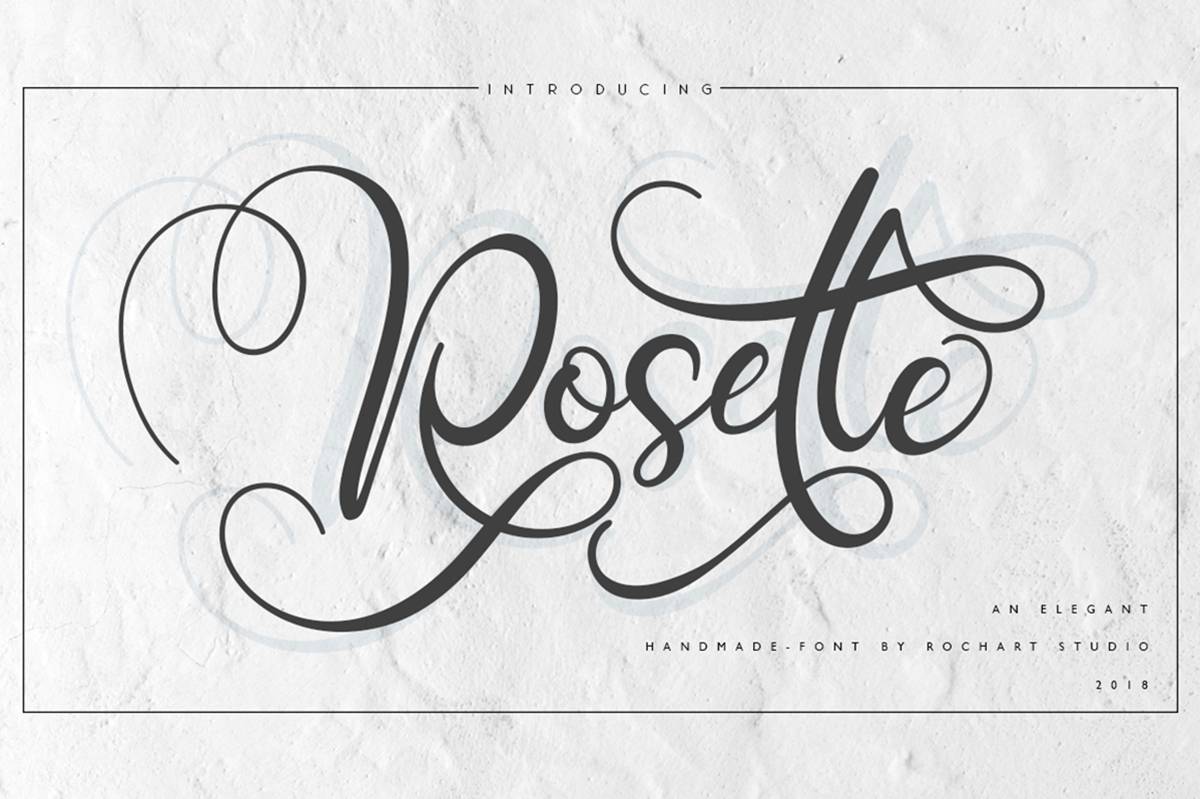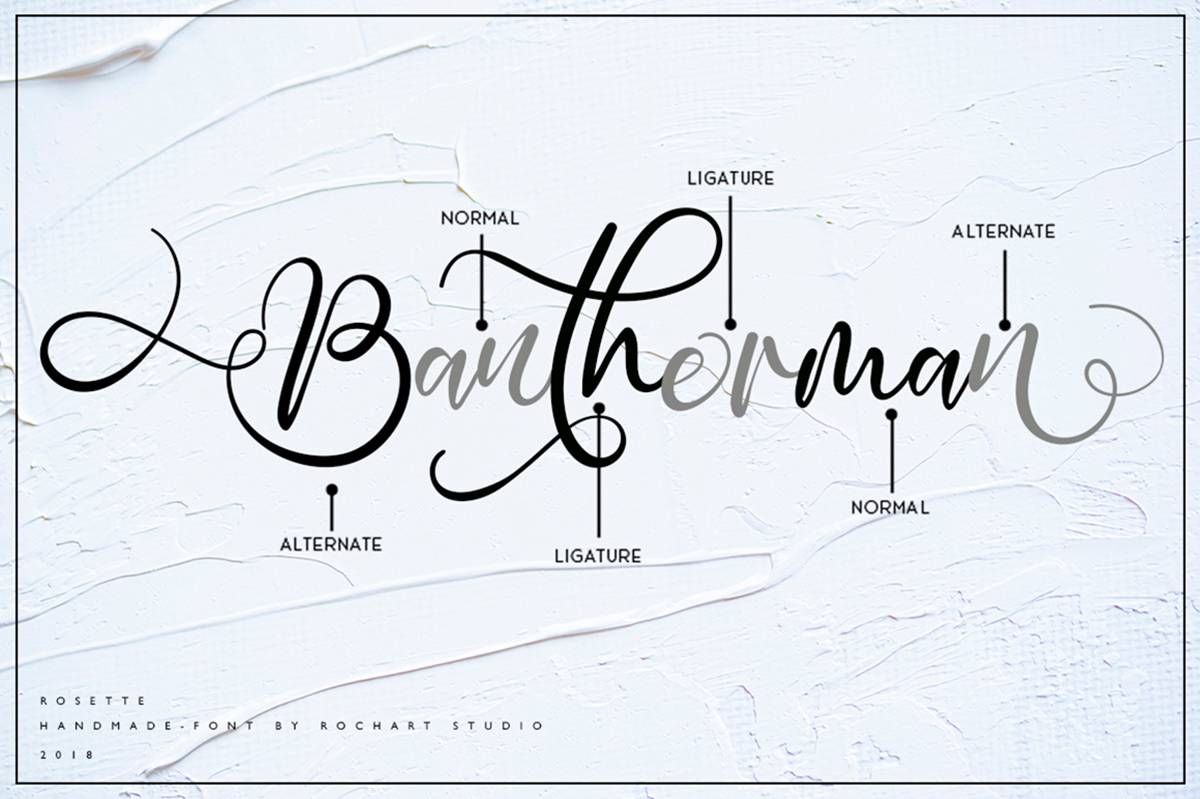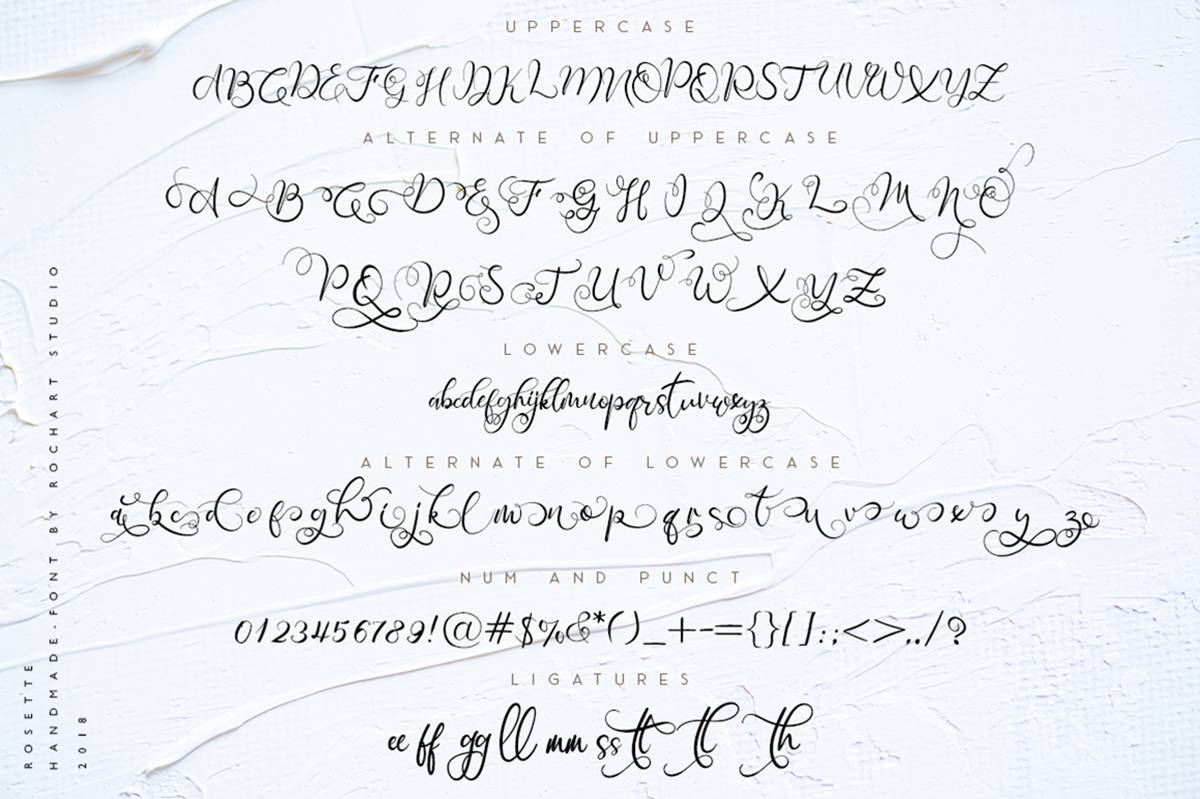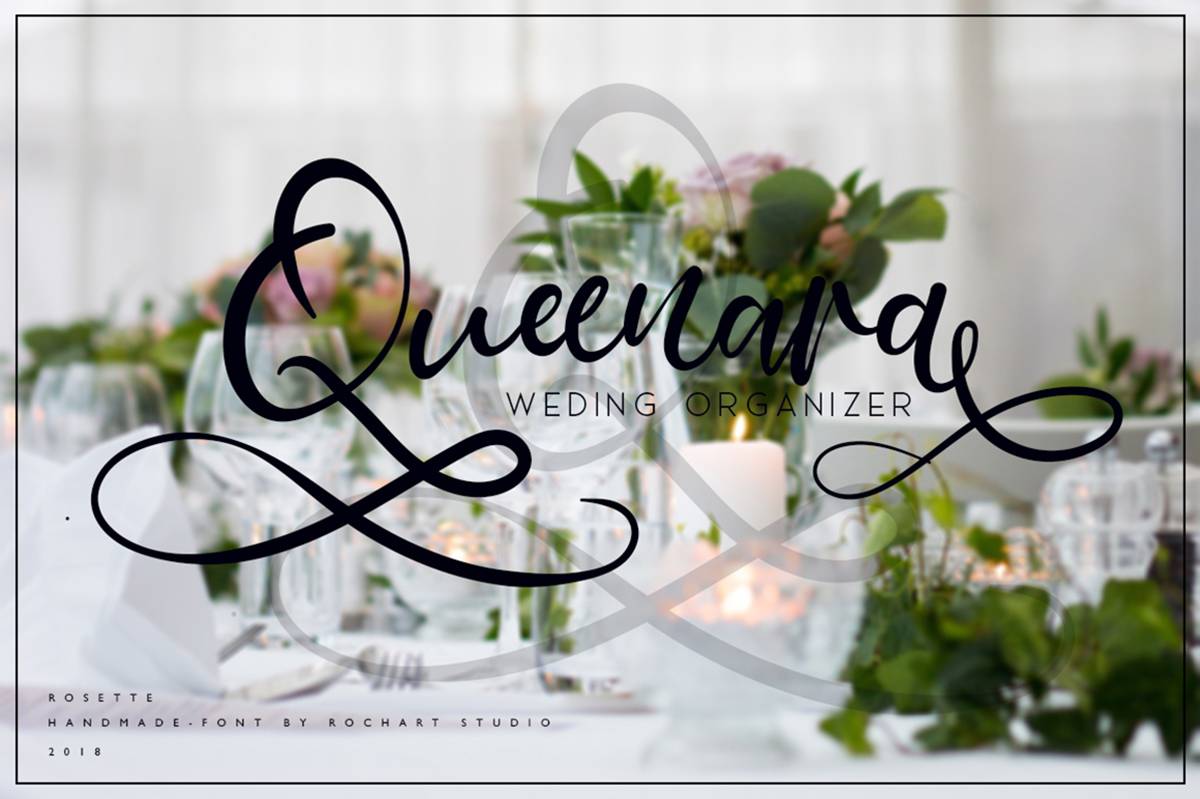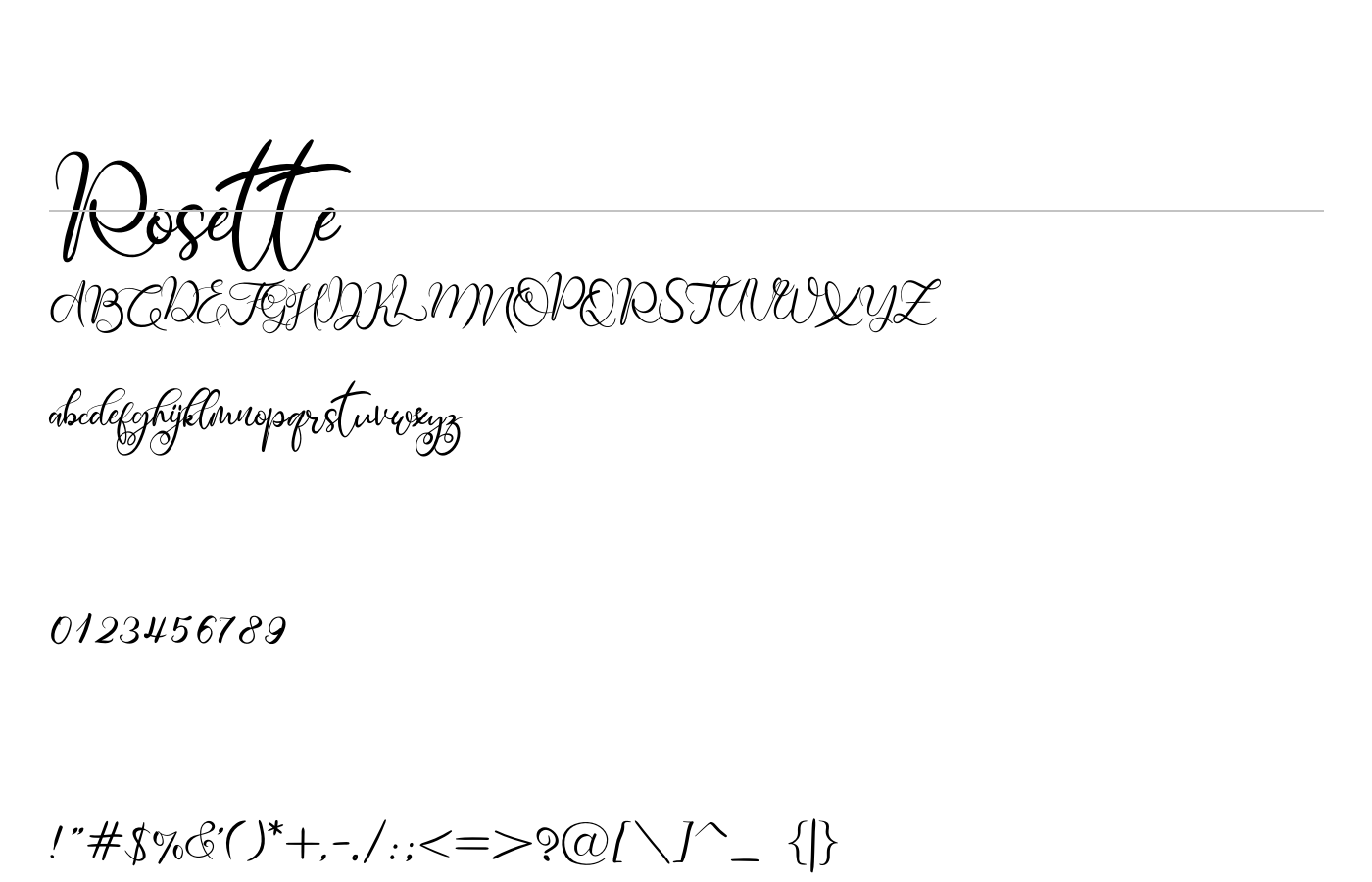
Rosette is an elegant script font characterized by its delicate, flowing strokes and ornate letterforms, giving it a sophisticated and artistic feel. Its high contrast and swirly flourishes make it ideal for luxury branding, wedding invitations, and elegant logos where a stylish, handcrafted touch is desired. This font works best in display sizes where its intricate details can shine, adding a refined and graceful personality to any design.
Rosette Font
About Rosette Font